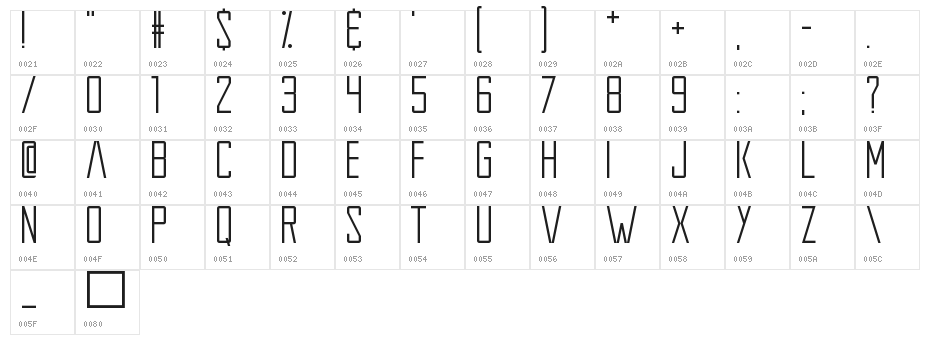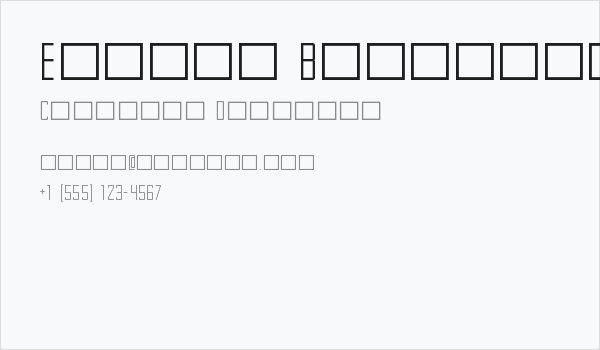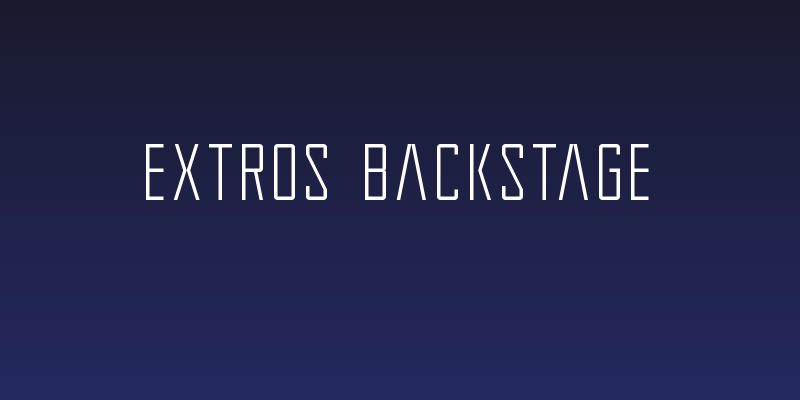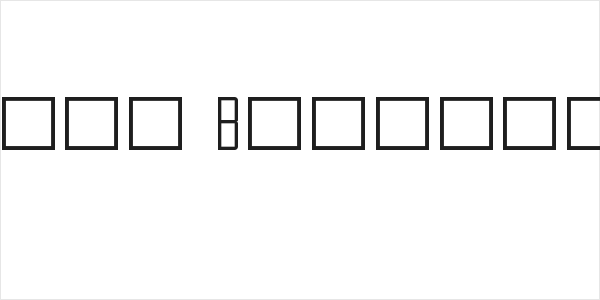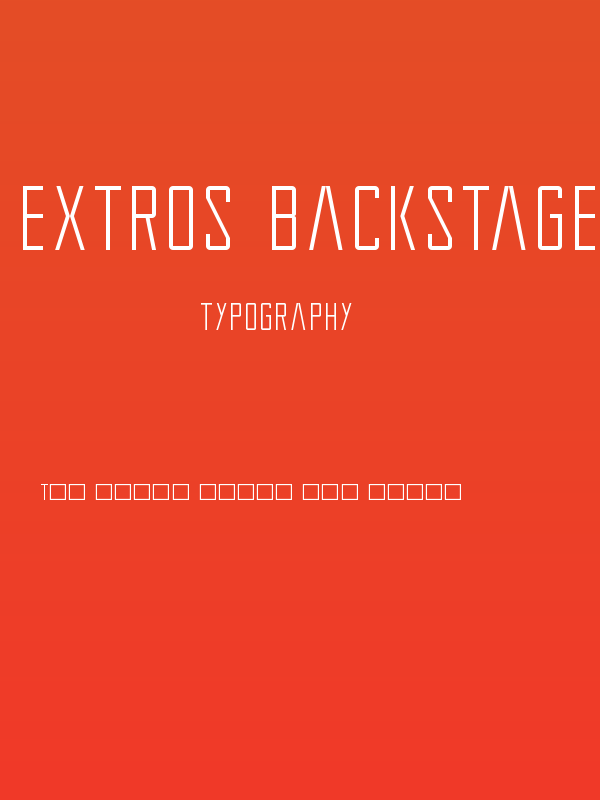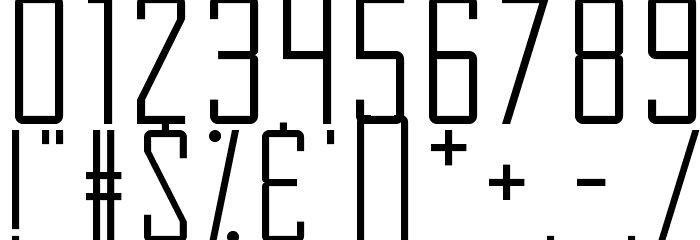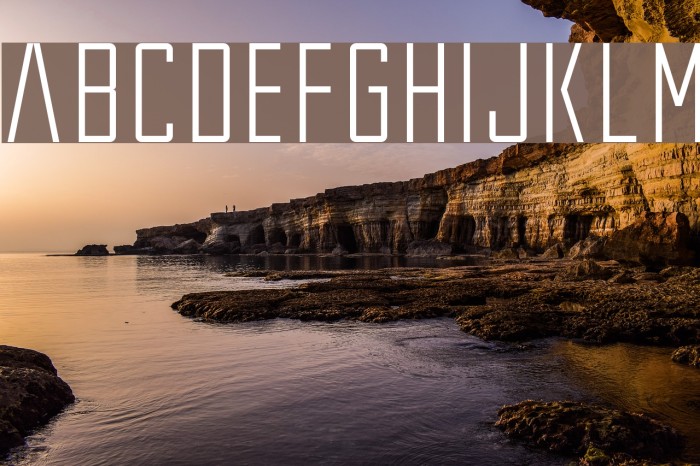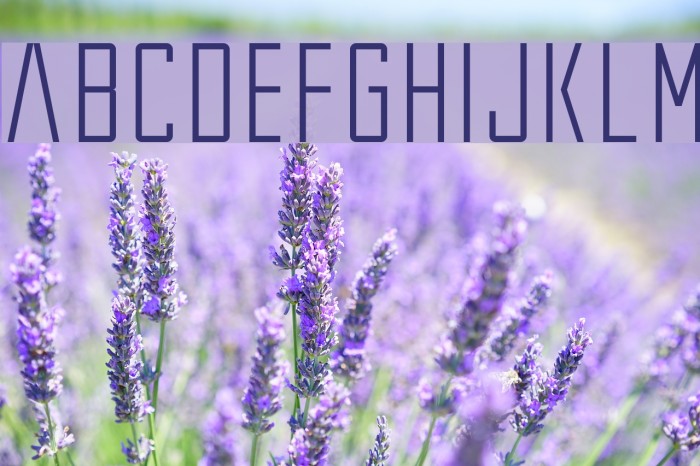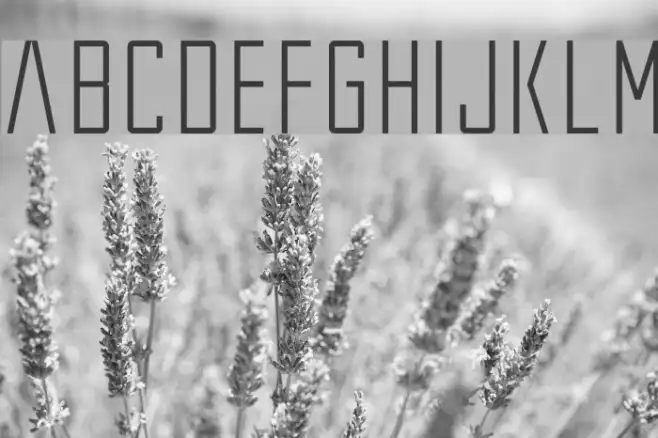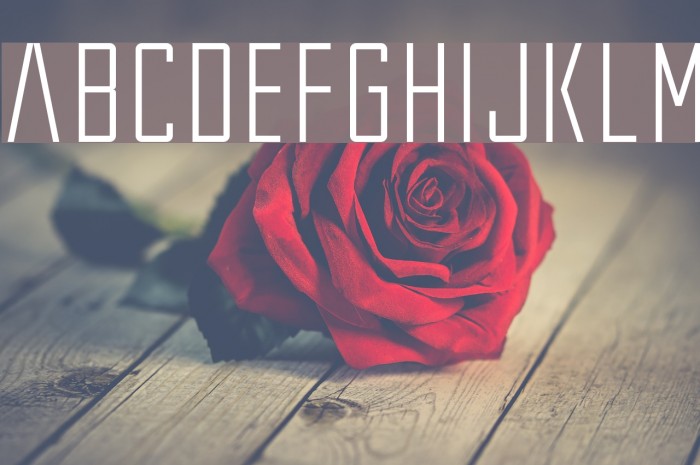
Extros Backstage Font
Extros Backstage Description
This font features a modern, geometric style with a clean and structured appearance. The characters are tall and narrow, giving a sleek and contemporary look. The uppercase letters have a uniform height, while the lowercase letters maintain a consistent style, enhancing readability. The numbers are distinct and align well with the overall design. Special characters are crafted to match the font's aesthetic, making it versatile for various applications. The font's minimalistic approach is ideal for projects that require a modern and professional touch.
| Use Case | Headlines, Logos, Digital interfaces |
| Proposed Projects | Ideal for branding, advertising, editorial design, and digital interfaces. |